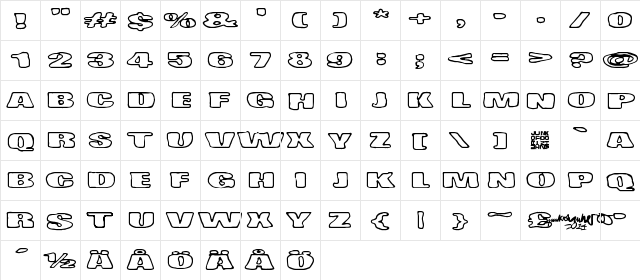
Tempo Minimo Bass Regular
Design Context for Tempo Minimo Bass Typeface
Tempo Minimo Bass is a composed and adaptable typeface that performs quietly and consistently across a wide range of design contexts.